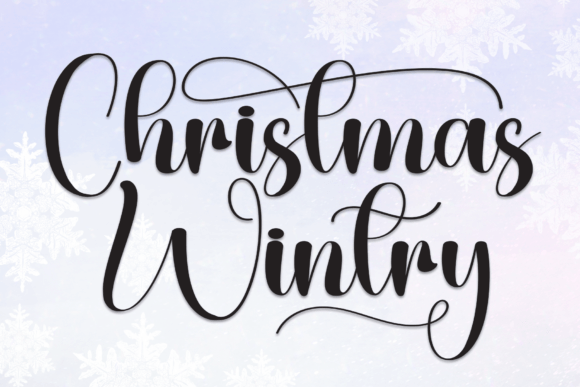
Christmas Wintry Font: A Beautiful Script Font for the Holiday Season
As the holiday season approaches, designers and crafters are on the lookout for the perfect font to add a touch of magic to their Christmas cards, invitations, and designs. If you’re looking for a font that exudes coziness and elegance, look no further than Christmas Wintry Font. In this article, we’ll take a closer look at this beautiful script font and explore its features, uses, and benefits.
What is Christmas Wintry Font?
Christmas Wintry Font is a beautiful script font with flowing, hand-drawn letters. It has a cozy and elegant look, perfect for adding a personal and stylish touch to cards, invitations, or any design that needs a festive feel. The font is designed to resemble handwritten letters, with each letter carefully crafted to create a sense of movement and fluidity.
Features of Christmas Wintry Font
So, what makes Christmas Wintry Font so special? Here are some of its key features:
- Hand-drawn letters: Each letter is carefully hand-drawn to create a unique and personal feel.
- Flowing script: The font features a flowing script style, perfect for creating elegant and sophisticated designs.
- Cozy and elegant look: The font has a cozy and elegant look, perfect for adding a touch of warmth and sophistication to your designs.
- Perfect for cards and invitations: The font is ideal for creating Christmas cards, invitations, and other holiday designs.
Uses of Christmas Wintry Font
Christmas Wintry Font is a versatile font that can be used for a variety of design projects. Here are some ideas:
- Christmas cards: Create beautiful and personalized Christmas cards for friends and family.
- Invitations: Design elegant and sophisticated invitations for holiday parties and events.
- Holiday gift tags: Add a personal touch to your holiday gift tags with this beautiful font.
- Social media graphics: Use the font to create festive and engaging social media graphics for the holiday season.
- Web headers and banners: Add a touch of elegance and sophistication to your website with this beautiful font.
Benefits of Using Christmas Wintry Font
So, why should you choose Christmas Wintry Font for your design projects? Here are some benefits:
- Unique and personal feel: The font’s hand-drawn letters create a unique and personal feel that’s perfect for adding a touch of personality to your designs.
- Elegant and sophisticated look: The font’s flowing script style and cozy and elegant look make it perfect for creating sophisticated and elegant designs.
- Easy to read: Despite its elegant and cursive style, the font is easy to read, making it perfect for use in a variety of design projects.
- Versatile: The font can be used for a variety of design projects, from Christmas cards and invitations to social media graphics and web headers.
Tips for Using Christmas Wintry Font
Here are some tips for getting the most out of Christmas Wintry Font:
- Use it with a holiday color scheme: Pair the font with a holiday color scheme, such as red and green, to create a festive and seasonal look.
- Experiment with different sizes and styles: Don’t be afraid to experiment with different sizes and styles to find the perfect look for your design.
- Pair it with other fonts: Consider pairing Christmas Wintry Font with other fonts to create a unique and interesting look.
- Use it in combination with images: Use the font in combination with images, such as holiday illustrations or photos, to create a beautiful and engaging design.
Christmas Wintry Font is a beautiful script font that’s perfect for adding a touch of magic to your Christmas cards, invitations, and designs. With its flowing, hand-drawn letters and cozy and elegant look, it’s the perfect choice for anyone looking to create a sophisticated and elegant design. Whether you’re a designer, crafter, or DIY enthusiast, this font is sure to become a favorite in your collection.